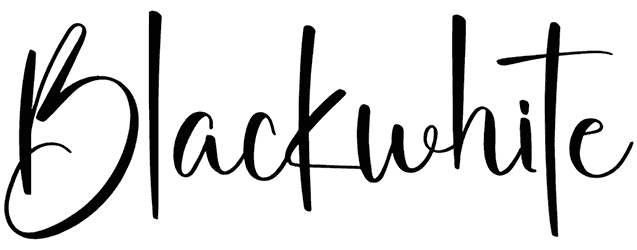
Blackwhite Font
Let’s cause a lovable and classic vibe in your future design and leave a nice impression on your audience. This handwritten font, which is called Blackwhite, can give a delicate and soft reflection to your layout. With an almost full cover of characters, this cursive font will be an excellent illustration for various projects like posters, invitations, logos, cards, or whatnot.